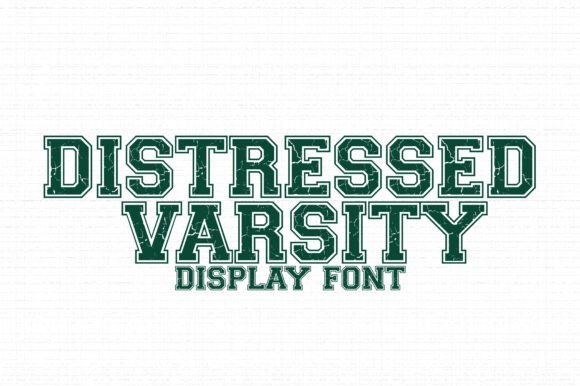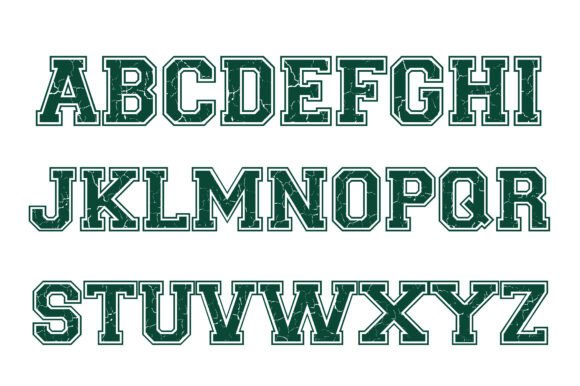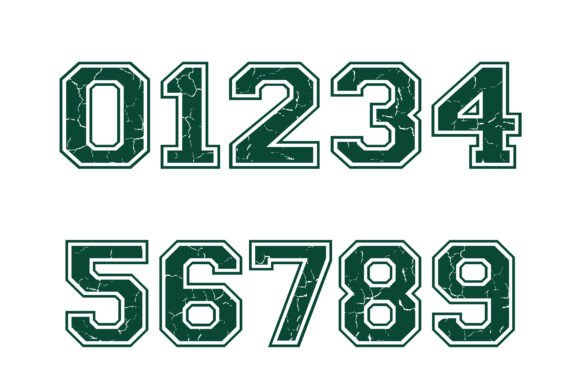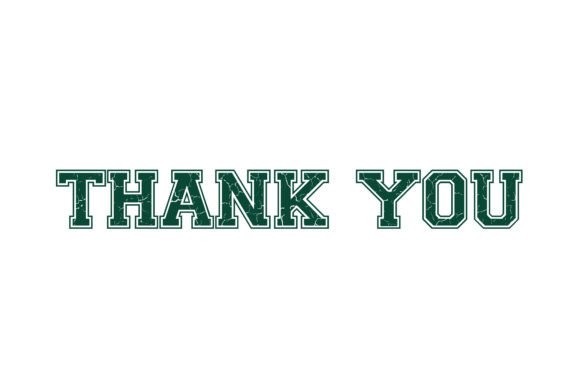
Get Ready to Score Big with Your Designs!
Have you ever been stuck trying to come up with the perfect font for your sports-themed project, only to feel like you’re running out of time and ideas? I know I have! That’s why I’m always on the lookout for unique and eye-catching fonts that can elevate my designs and take them to the next level. And that’s exactly what I found with the Distressed Varsity Font – a bold, grunge-inspired alphabet that’s perfect for adding a vintage sports vibe to your work.
This versatile font is not just limited to sports projects, but can be used for a wide range of creative endeavors, from team jerseys and game day shirts to college and sports projects, digital design, and DIY party decorations. With its distressed texture and athletic feel, the Distressed Varsity Font is a valuable addition to any designer’s toolkit, and I’m excited to share its benefits and uses with you in this article.
Distressed Varsity Font Key Features
- Font Family: A distressed version of the classic Varsity font, with a worn and weathered look.
- Unique Characteristics: Distressed Varsity Font features a unique blend of worn and weathered textures, with subtle scratches and imperfections that give it a vintage look.
Distressed Varsity Font Review
The Distressed Varsity Font is a bold and edgy take on the classic varsity font. It’s perfect for designers who want to add some grit to their designs.
- ✨ Edgy, distressed texture adds a unique touch to designs
- ✨ Bold, legible font that’s perfect for headings and titles
- ✨ Works well with bold, eye-catching color schemes
- ⚠️ May not be suitable for designs that require a more refined, elegant look
- ⚠️ Can be overwhelming if used in large blocks of text
- ⚠️ May not be compatible with all font sizes or styles
Overall, the Distressed Varsity Font is a great choice for designers who want to add some edge to their designs. While it may not be suitable for every project, it’s a great option for those who want to make a statement. With some careful placement and styling, this font can add a unique touch to any design.
Distressed Varsity Font is commonly used for:
- Rock and roll-inspired designs.
- Distressed or vintage-style posters.
- Emphasizing bold, edgy text.